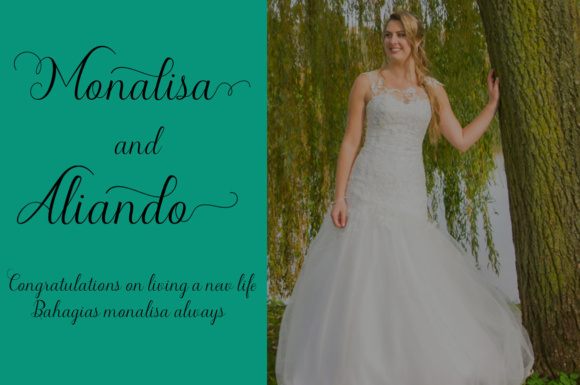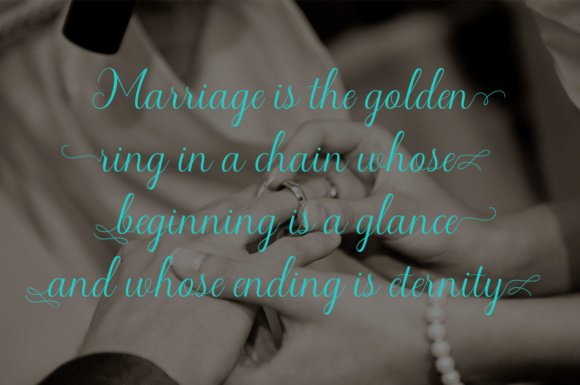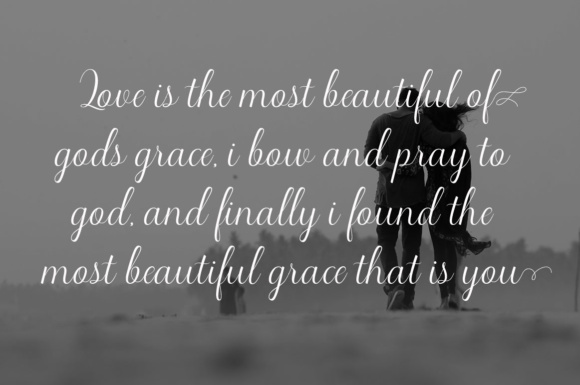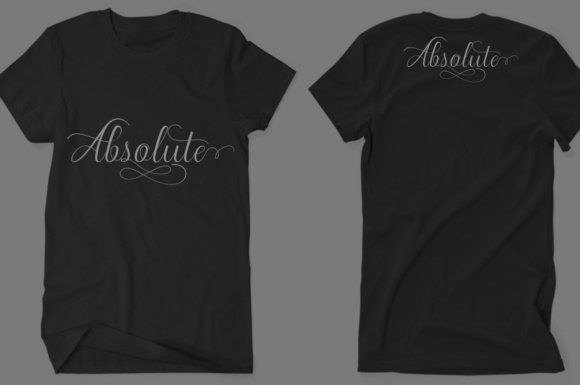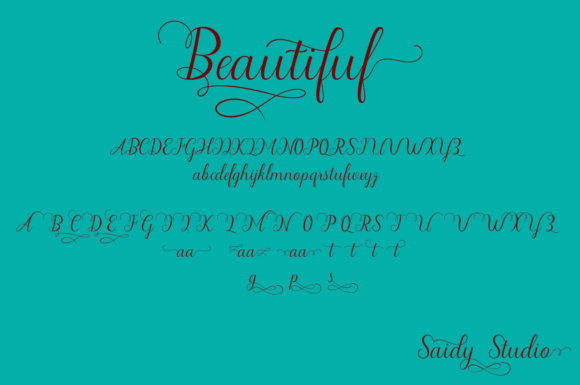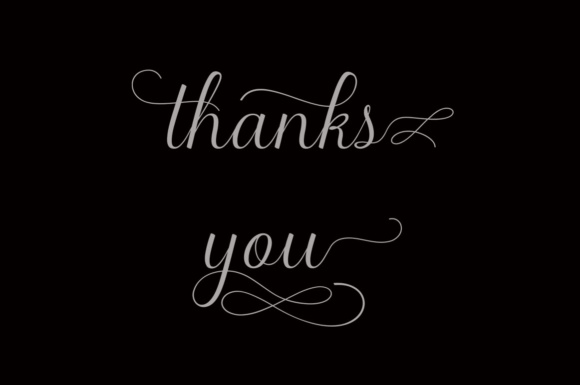
Beautiful Script Font
About Beautiful Script Font
The Beautiful is a modern calligraphy script. It has a modern, handwritten feel and includes unique calligraphy forms.